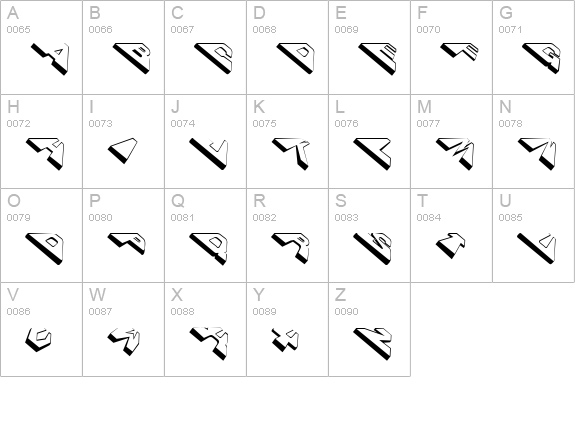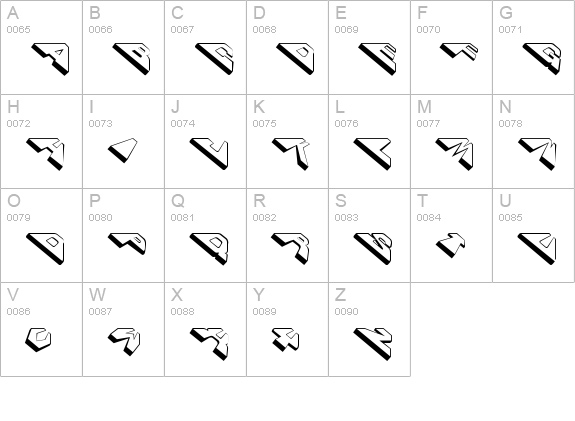
CosmosCaps Font Details
Introducing CosmosCaps font, a stunning display typeface that exudes elegance and sophistication. With its sleek lines and modern aesthetic, CosmosCaps is perfect for creating eye-catching headlines, titles, and logos. This versatile font features unique uppercase characters that are sure to make your designs stand out. What's even better is that CosmosCaps is completely free to download at FontsMarket.com. Yes, you heard that right - you can enhance your projects with this beautiful font without spending a dime. So why wait? Elevate your design game today with CosmosCaps and leave a lasting impression on your audience.